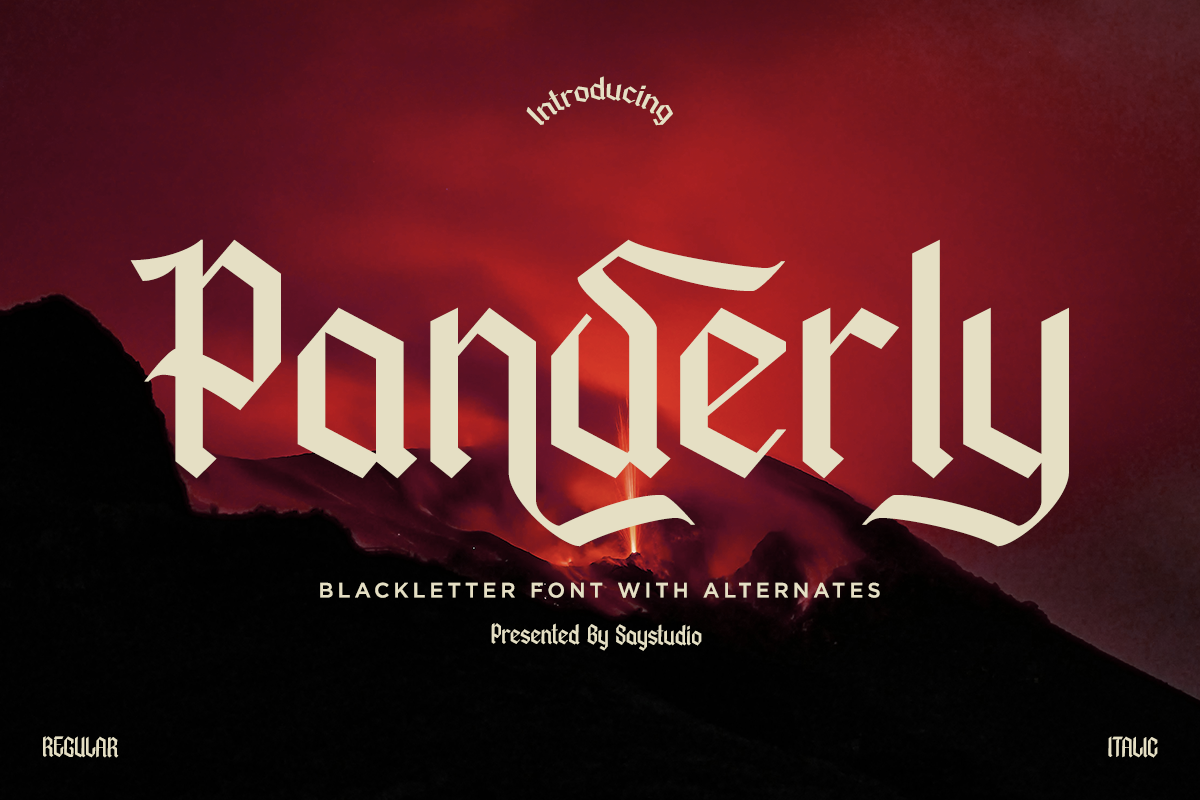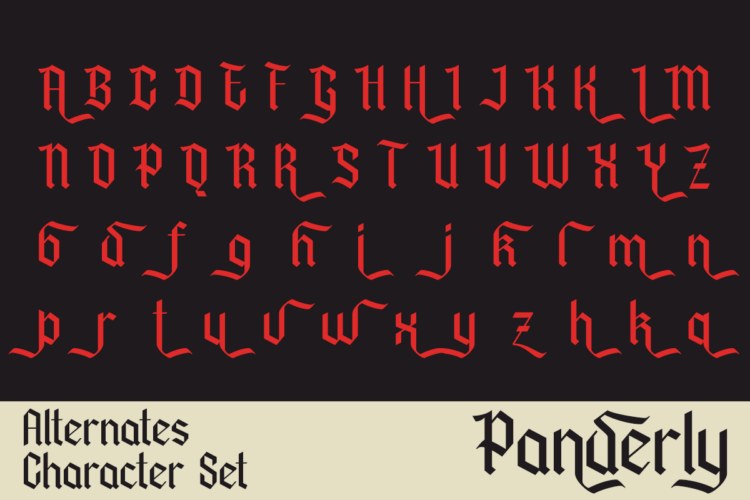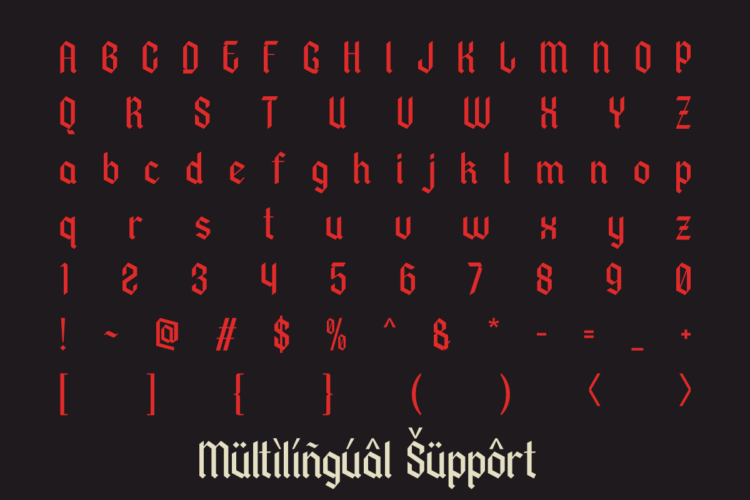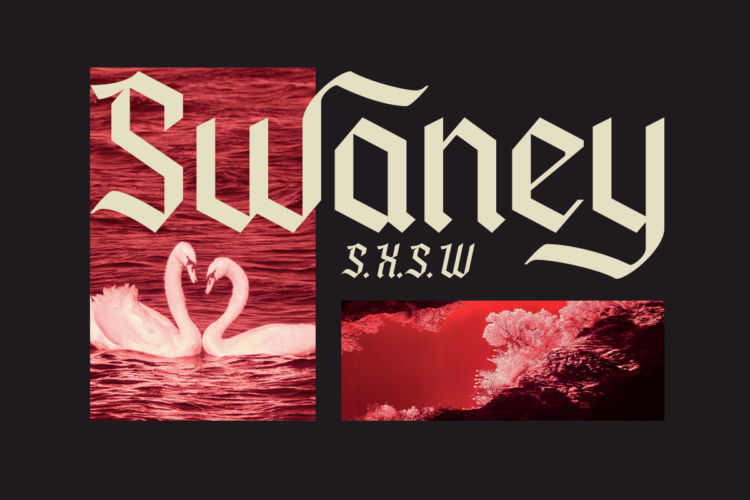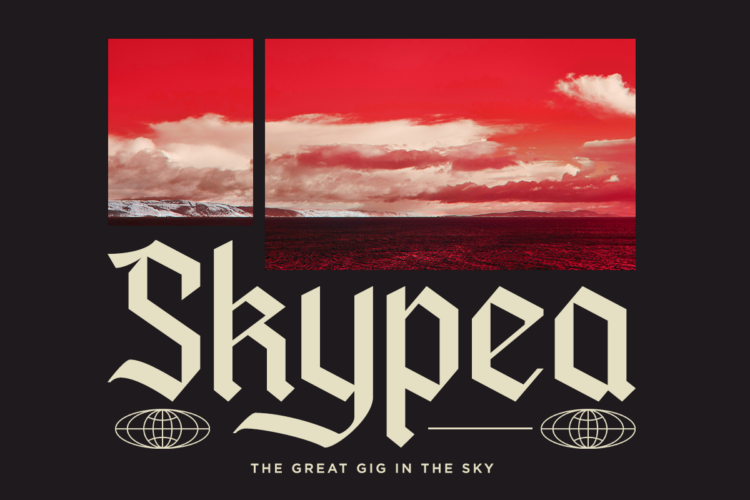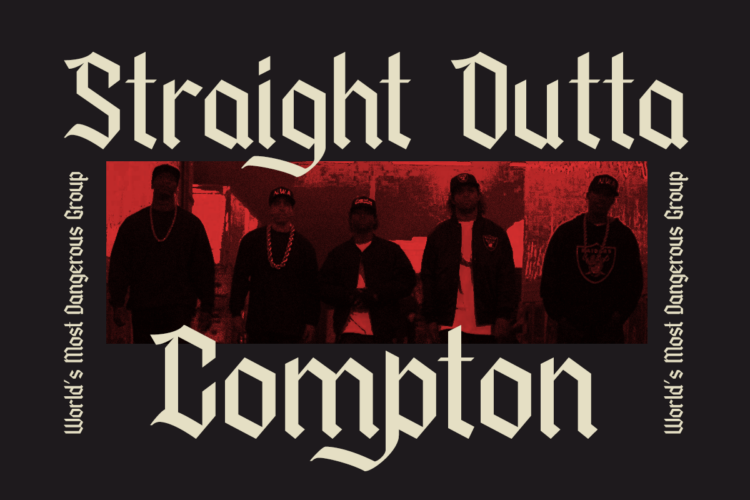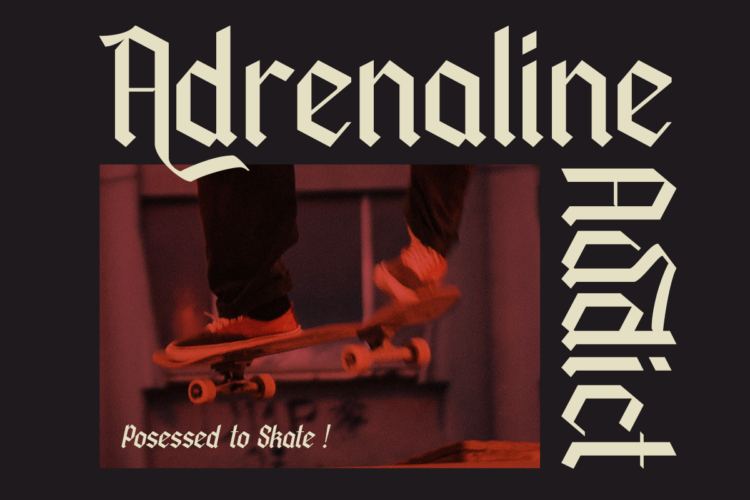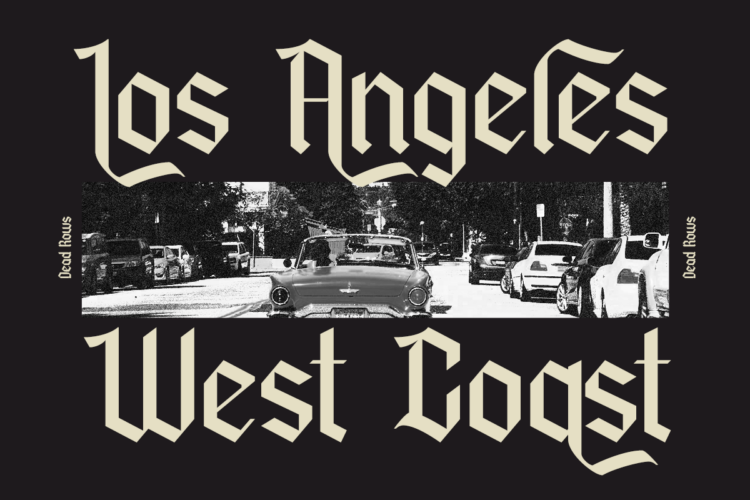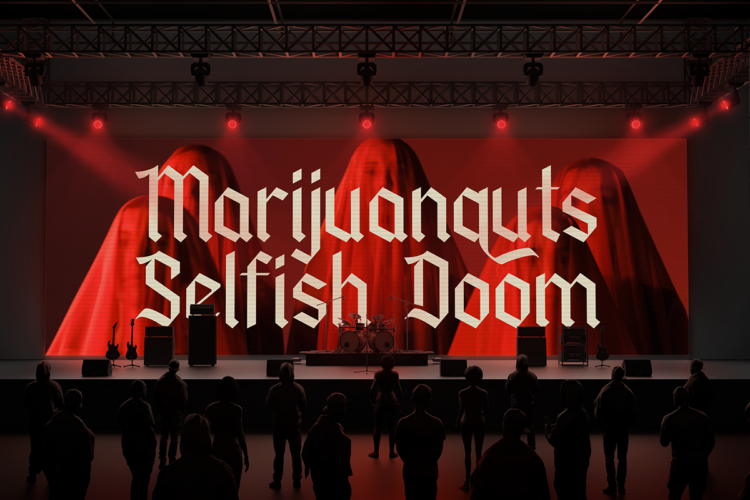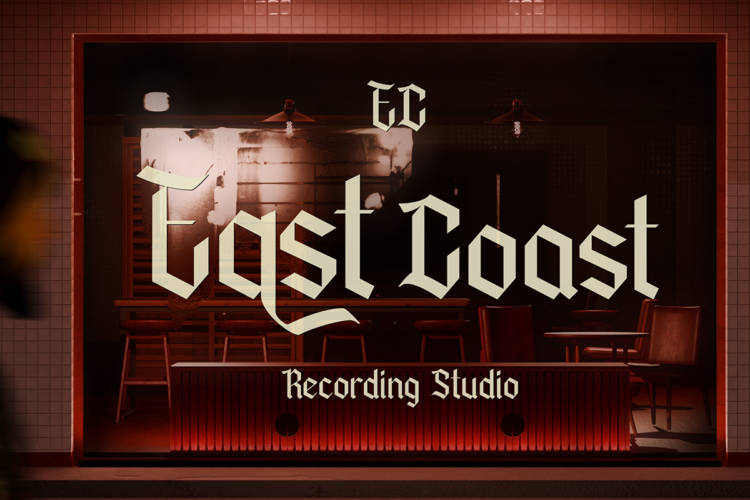
Panderly – Bold Blackletter Display
Panderly is a bold blackletter display font that captures the authentic spirit of gothic typography with a modern edge. Featuring sharp angular letterforms, expressive alternates, and handcrafted details, Panderly delivers a powerful visual presence that blends traditional Old English aesthetics with contemporary design trends. Its strong character makes every headline, logo, and branding project instantly recognizable.
Designed for streetwear brands, tattoo studios, music merchandise, skate culture, motorcycle clubs, gaming, esports, album artwork, posters, apparel, and premium branding, Panderly offers exceptional versatility. Complete with multilingual support, OpenType alternates, stylistic characters, numerals, punctuation, and decorative glyphs, it provides professional-quality typography for both print and digital applications.
Whether you’re creating clothing brands, metal band logos, hip-hop merchandise, YouTube thumbnails, social media graphics, vintage packaging, barbershop branding, beer labels, event posters, or bold editorial layouts, Panderly brings a fearless and rebellious personality to every design. Its authentic blackletter style is crafted for creators who want typography that is powerful, timeless, and unforgettable.